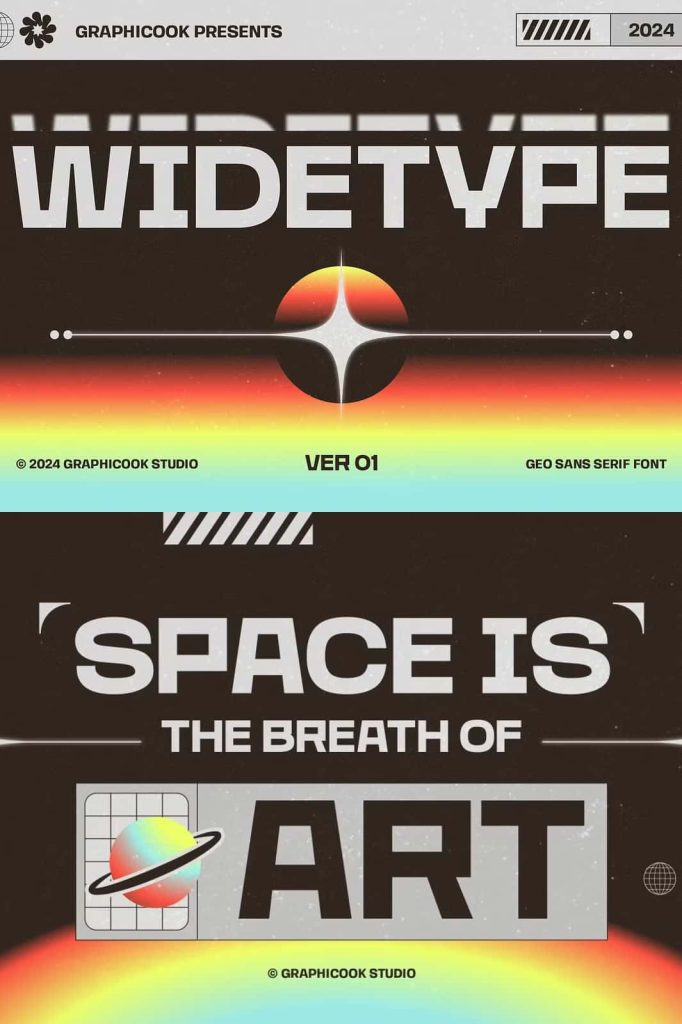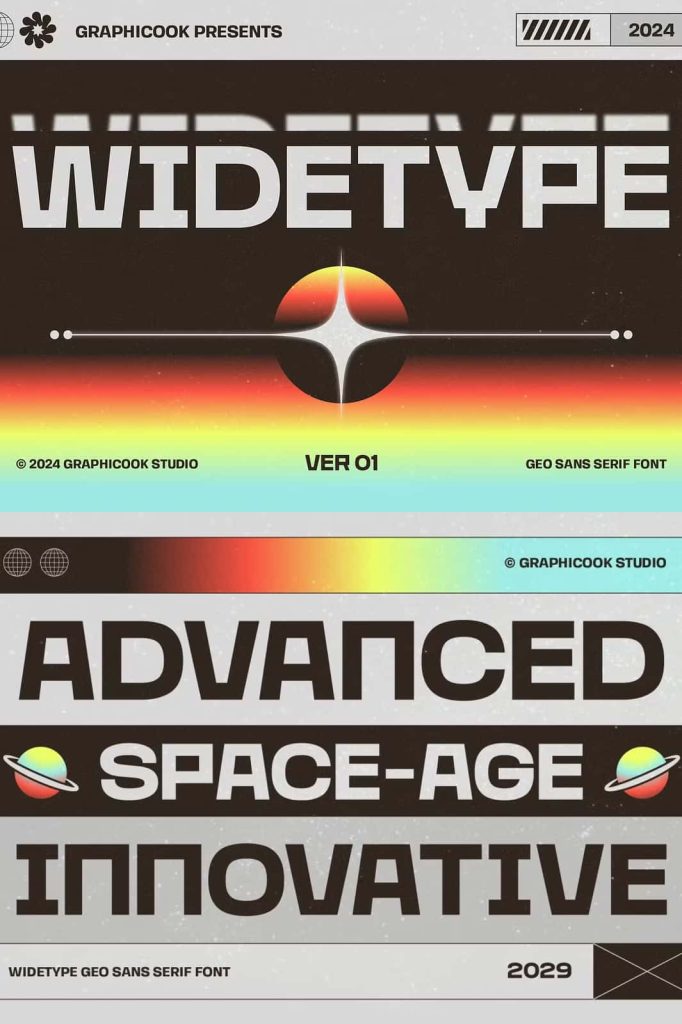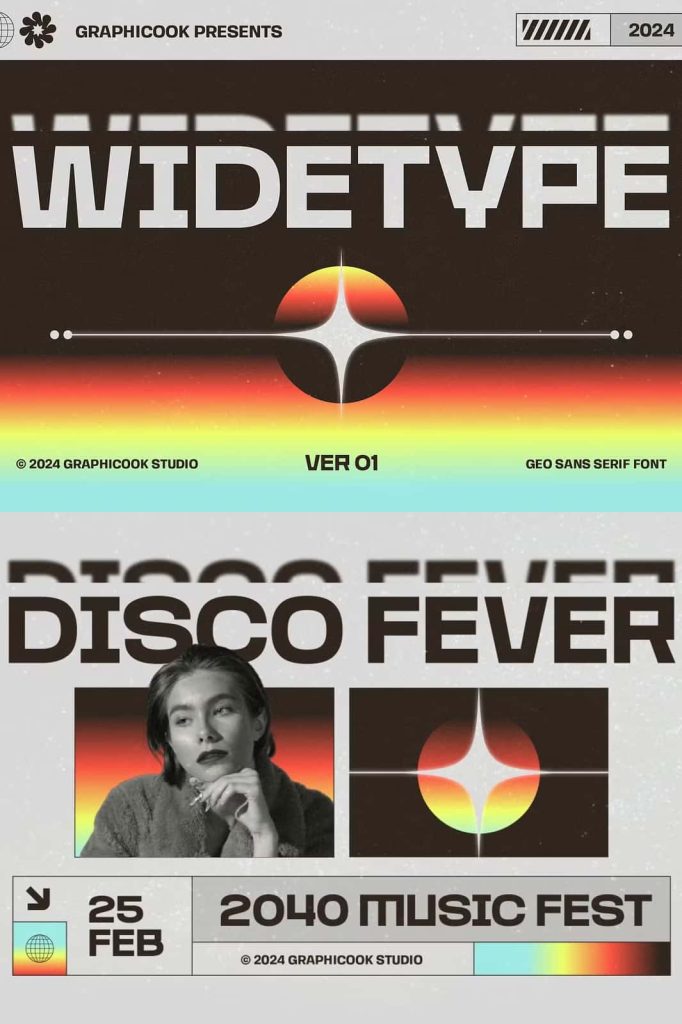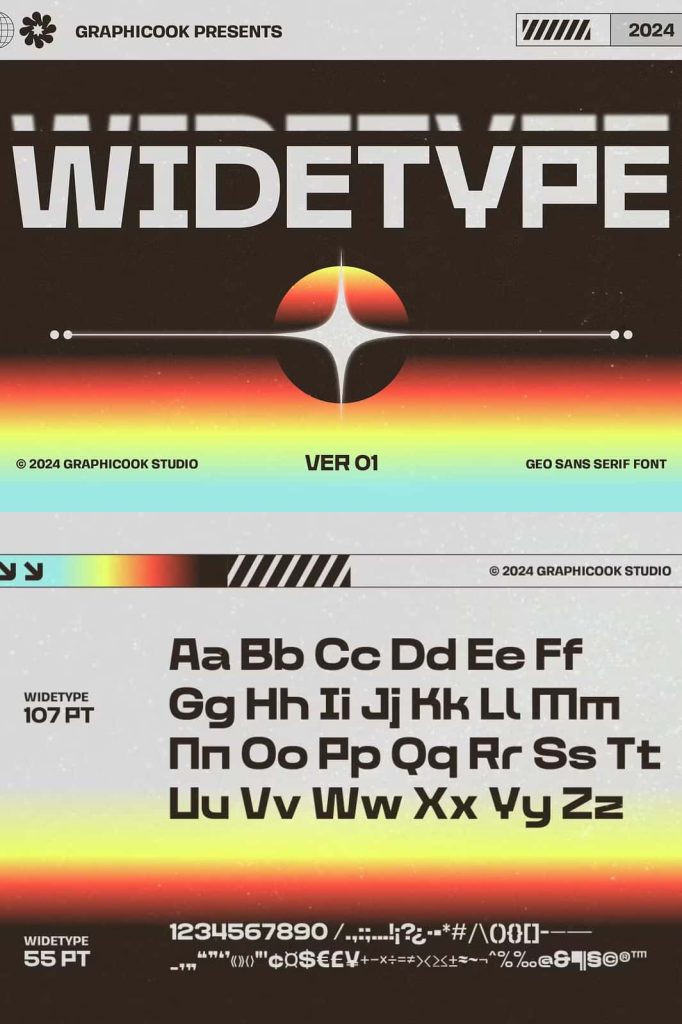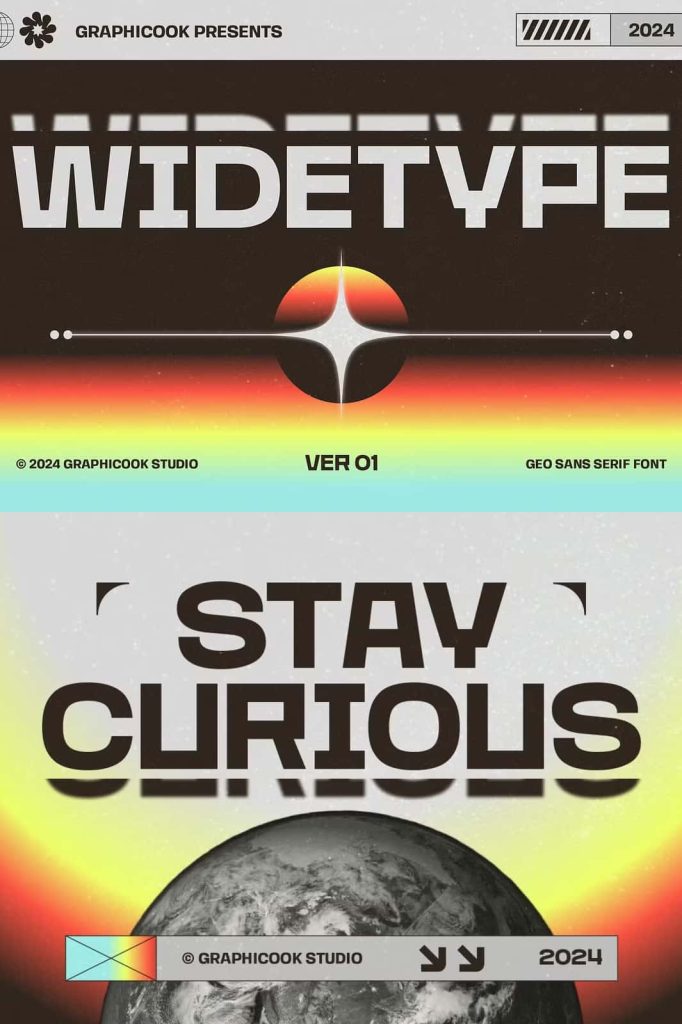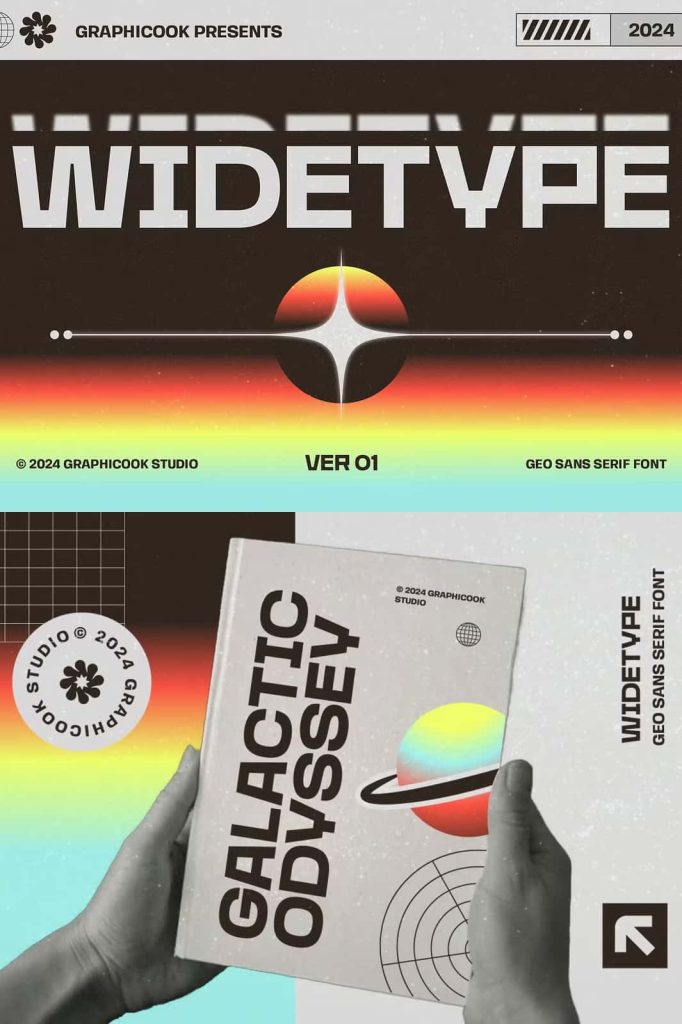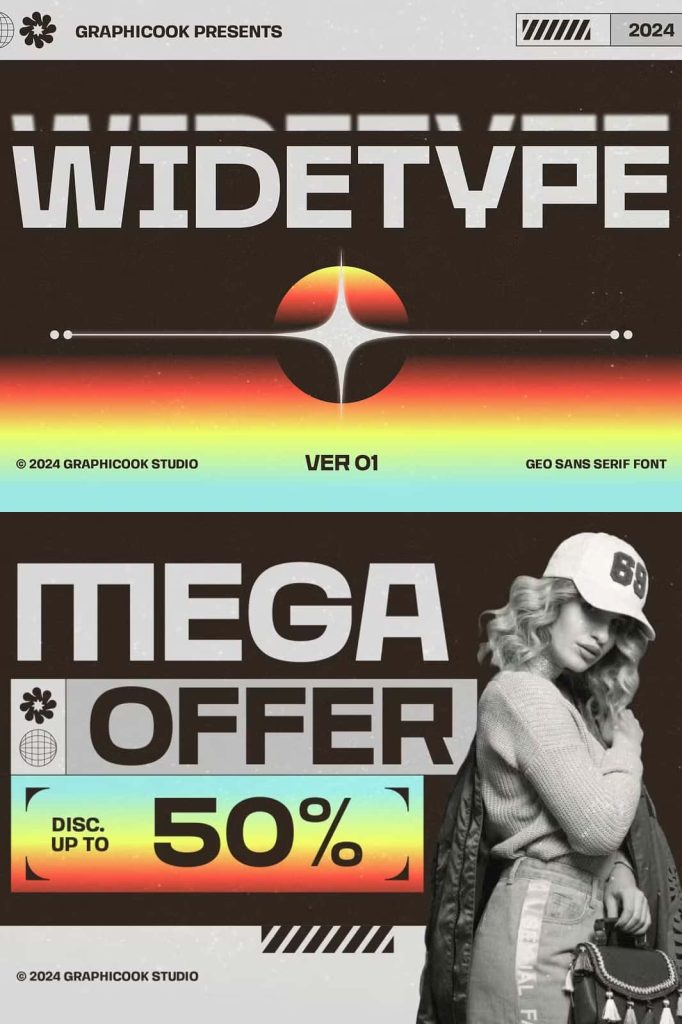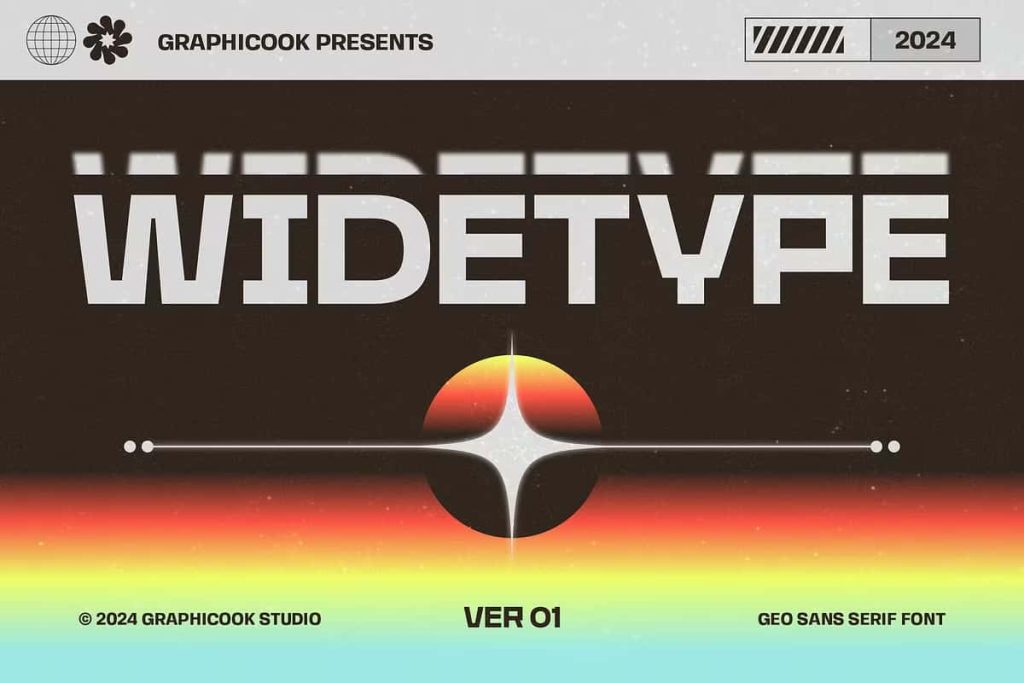
Introducing Widetype is a font that inspired by futuristic design that seamlessly combines geometric and grotesque styles with a modern twist. Ideal for logotypes, branding, album covers, and posters